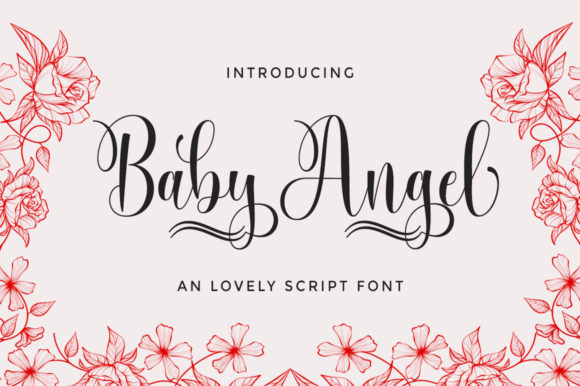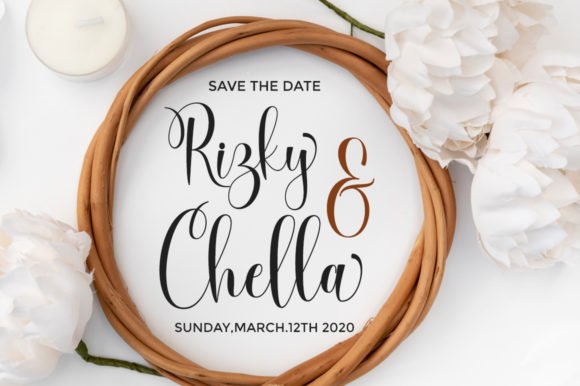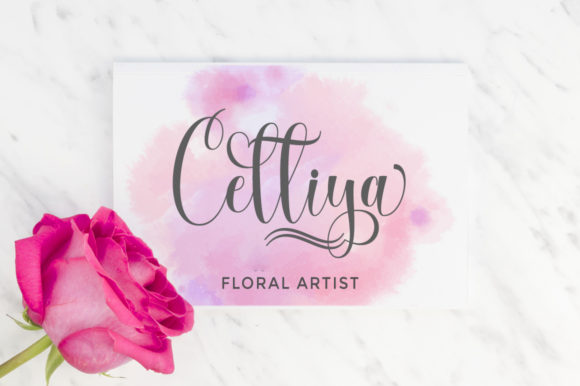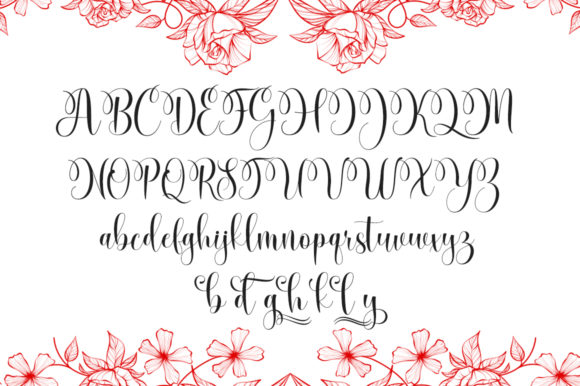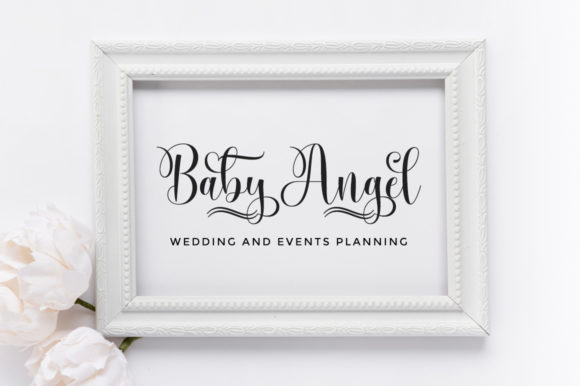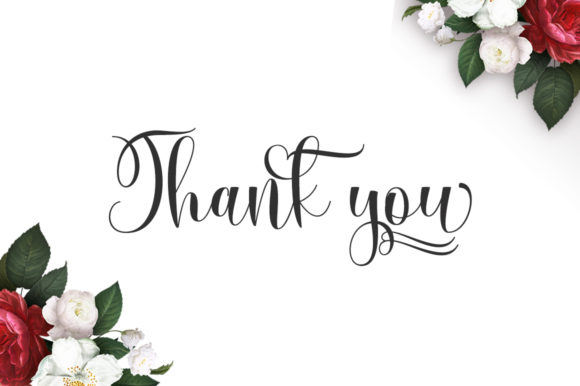
Baby Angel Font
About Baby Angel Font
Baby Angel is a modern calligraphy design, carefully handcrafted to become a true favorite. This beautiful script font will turn any creative idea into a true standout.